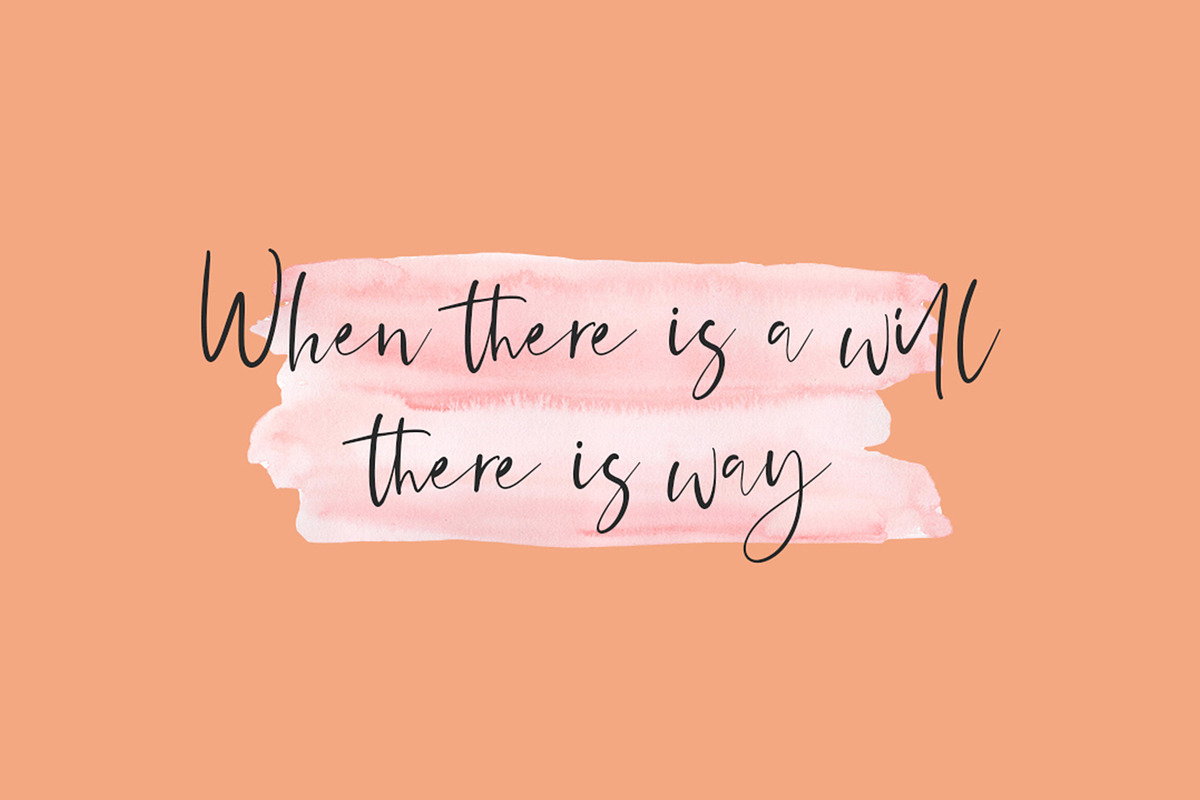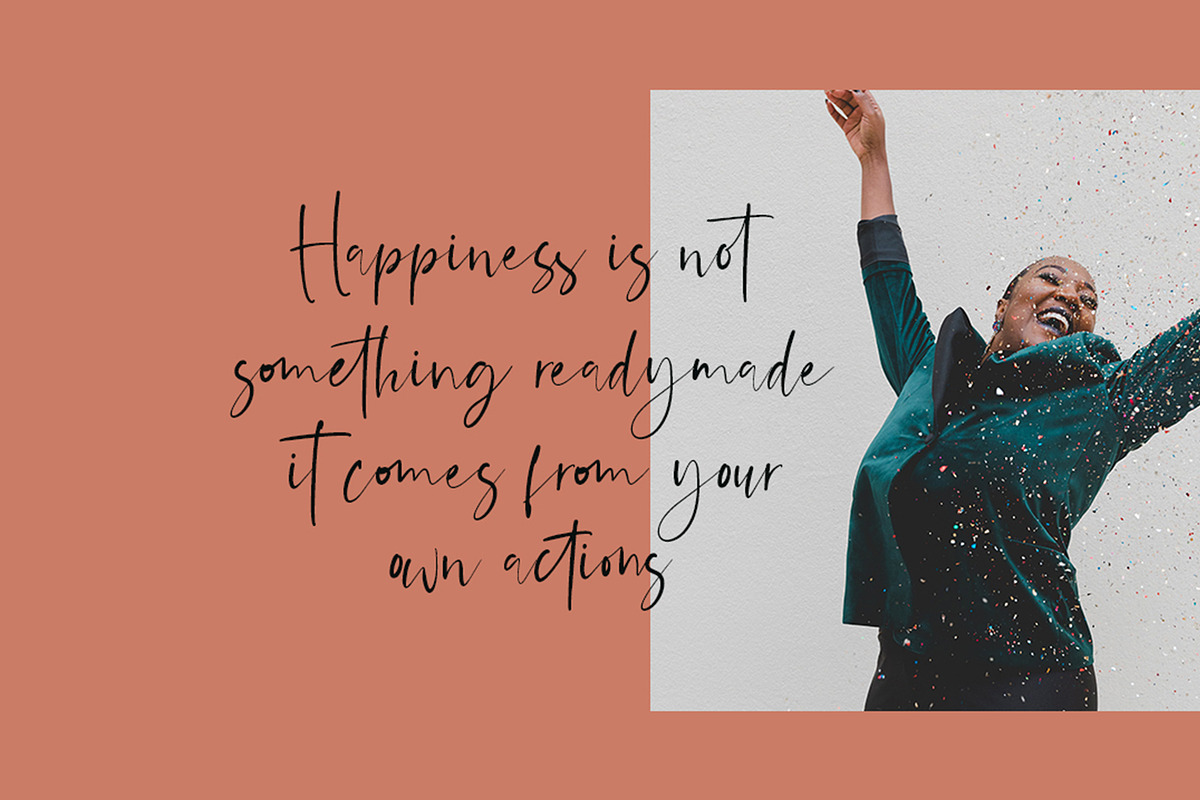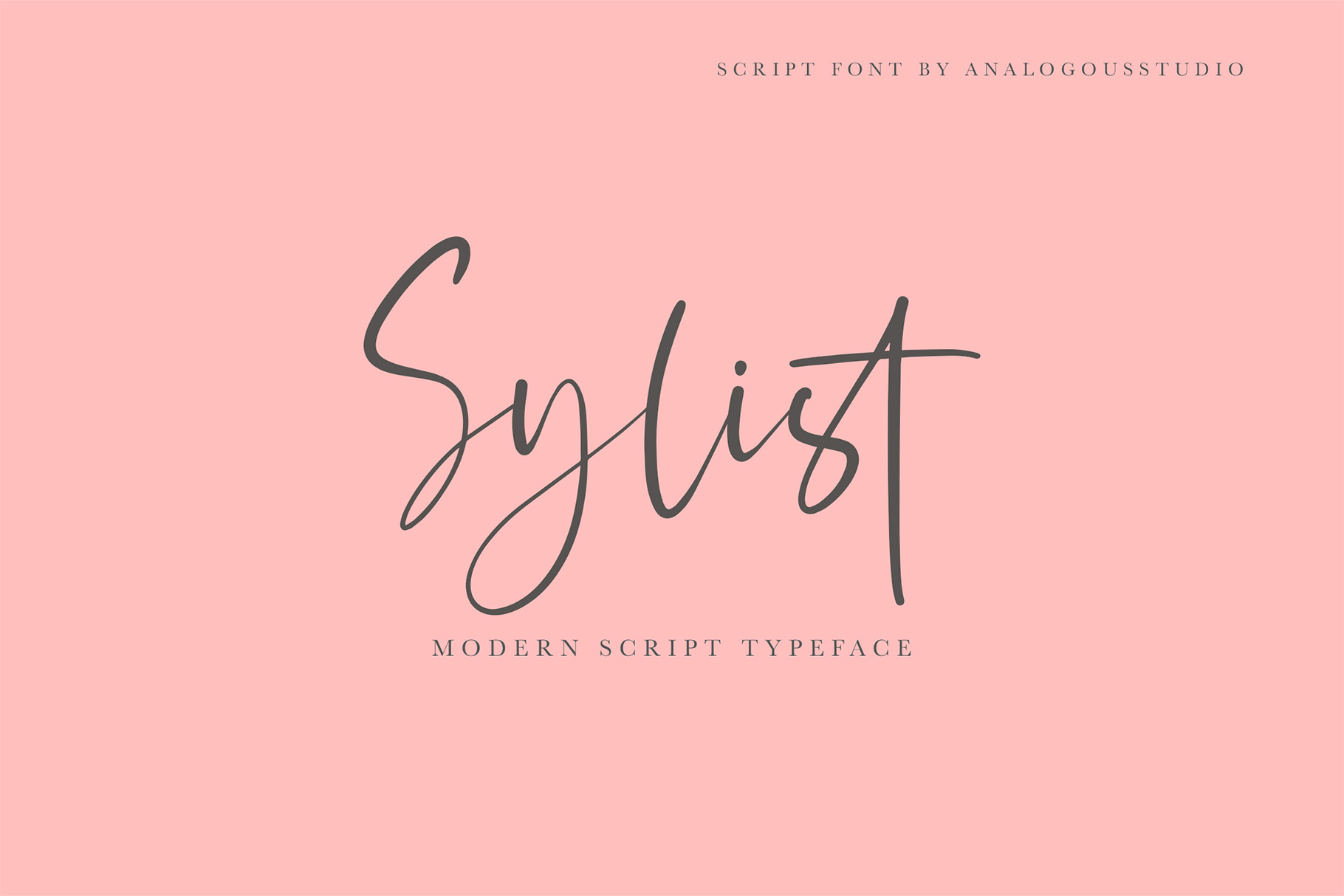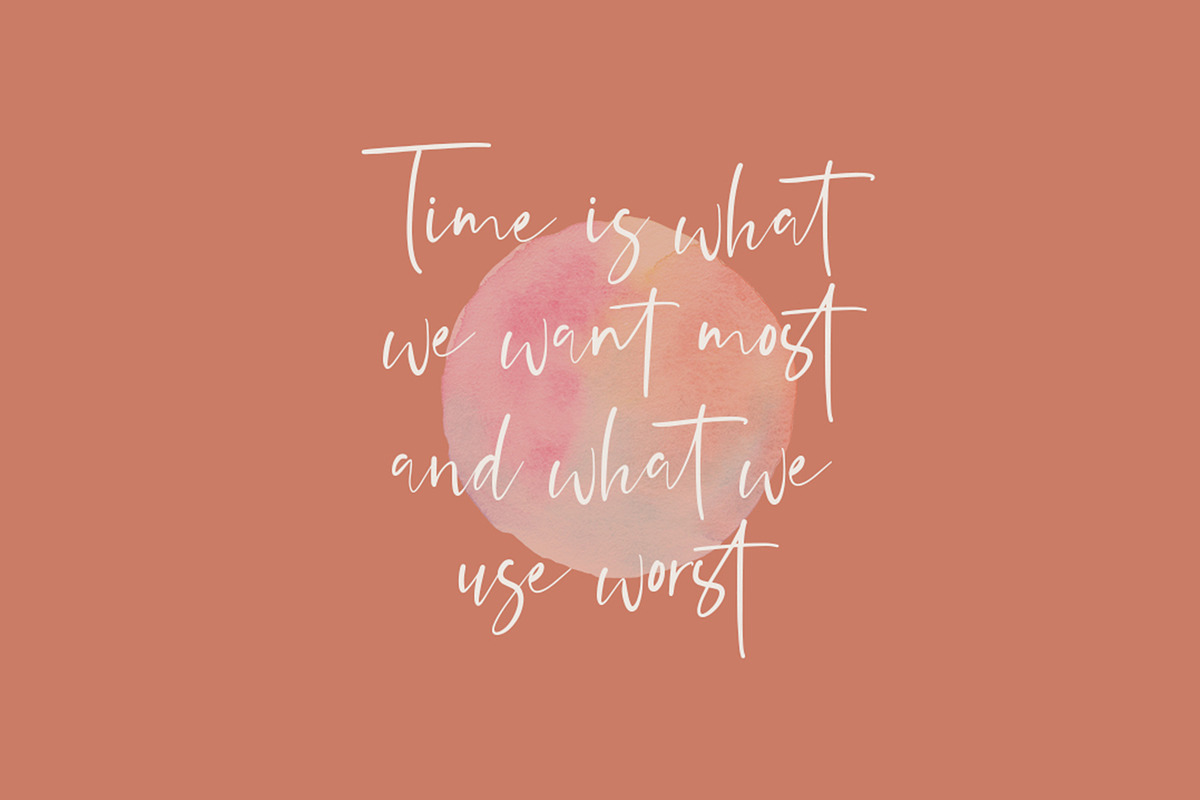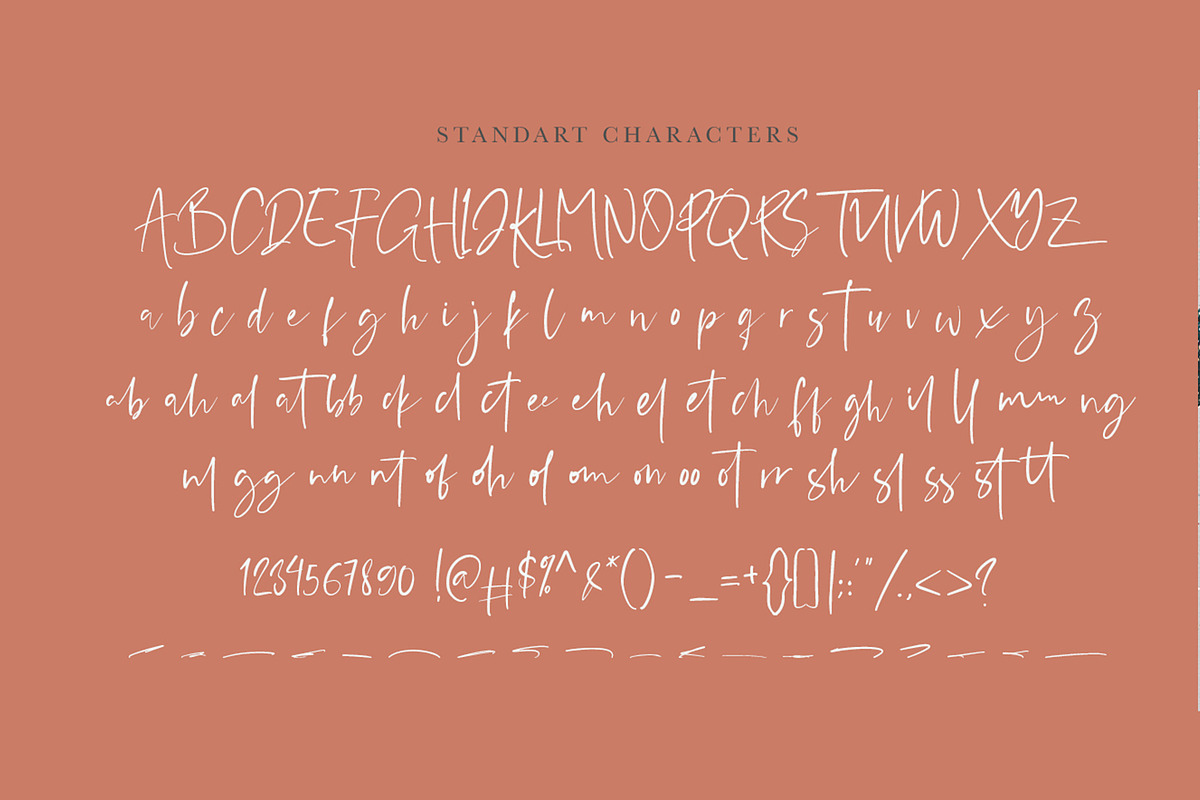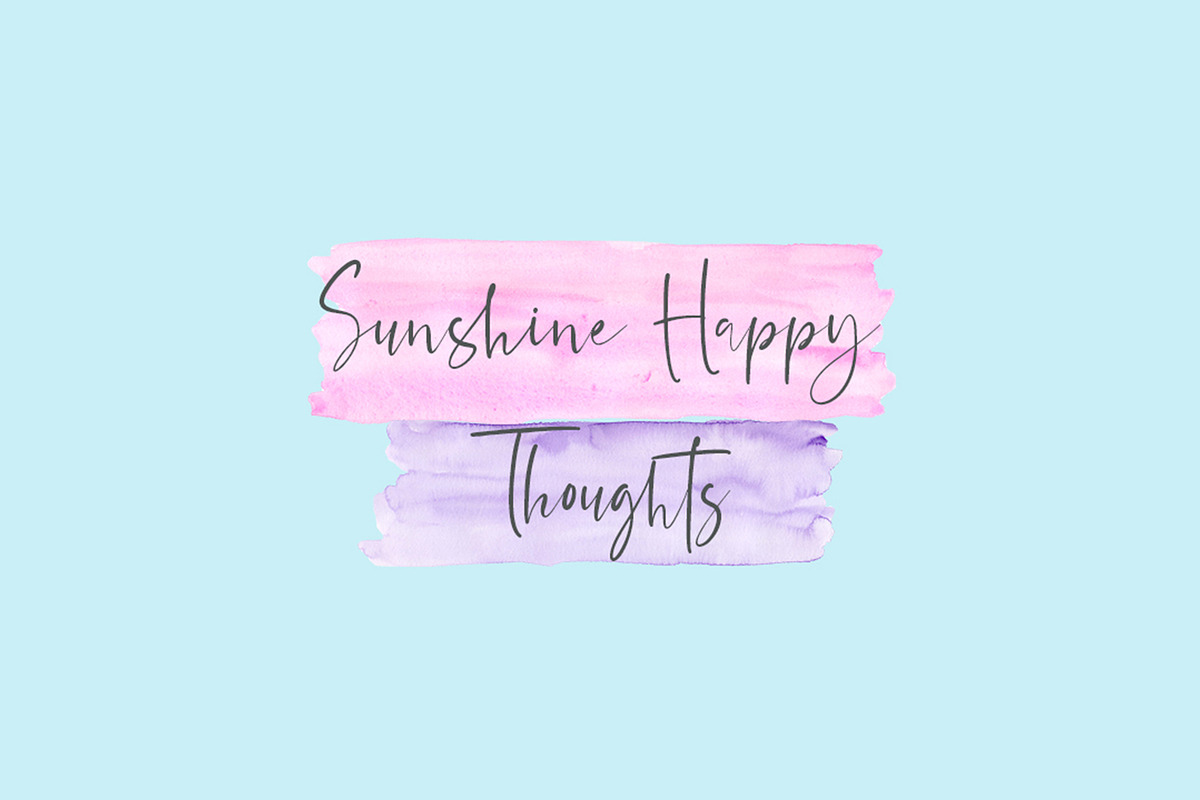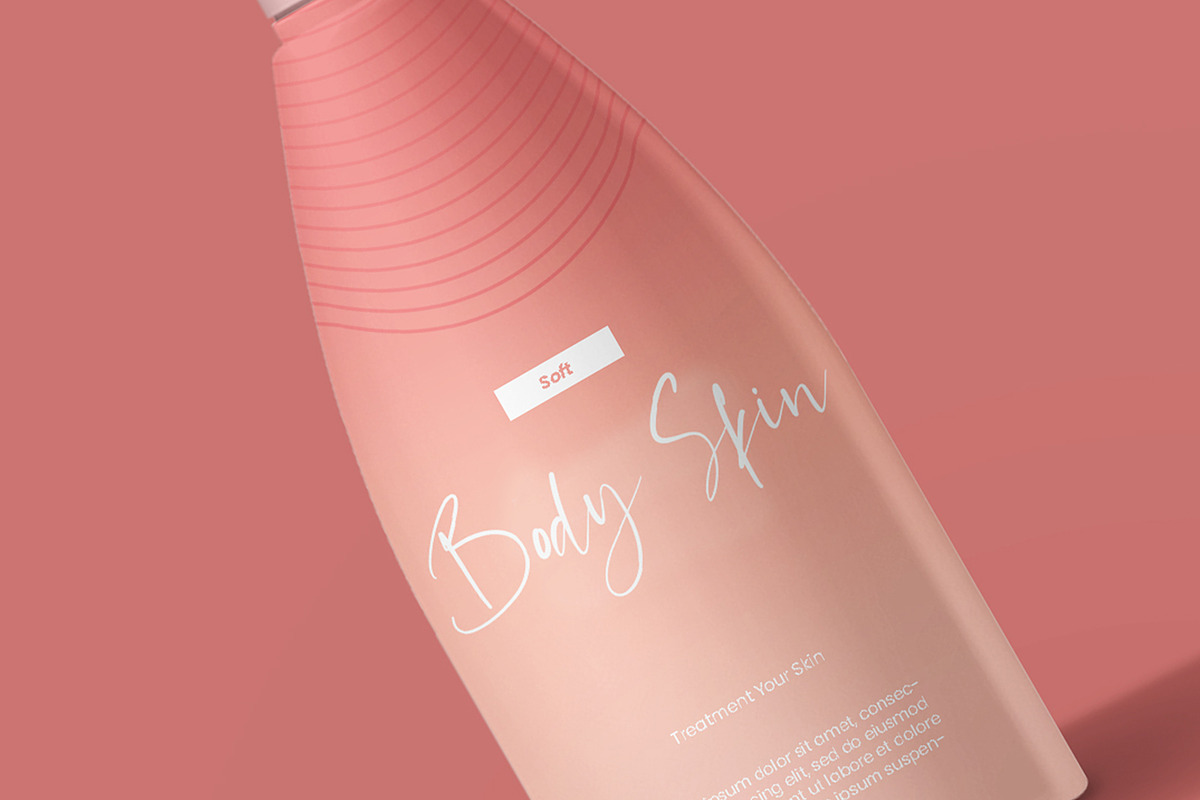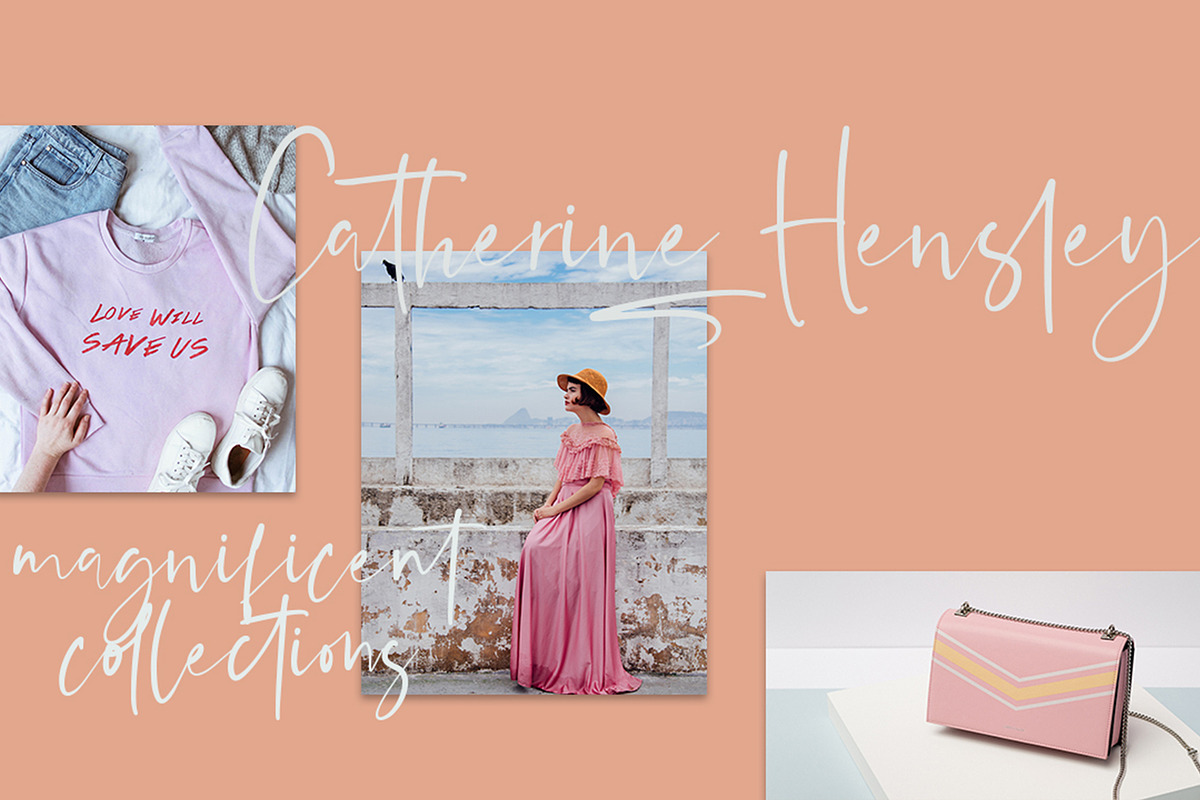
Sylist Script Font
We introduce our new product called Sylist Script Font.
Sylist Script Font is a Script font that you can use to make a design for logo branding, poster headline, magazines, book titles, business cards, beautiful fashion designs, advertisements, product designs, wedding invitation, signature or handwritten quote.
Features:.
Basic Latin A -Z and a – z
Number
International Symbol
International glyphs
Alternate
Ligature